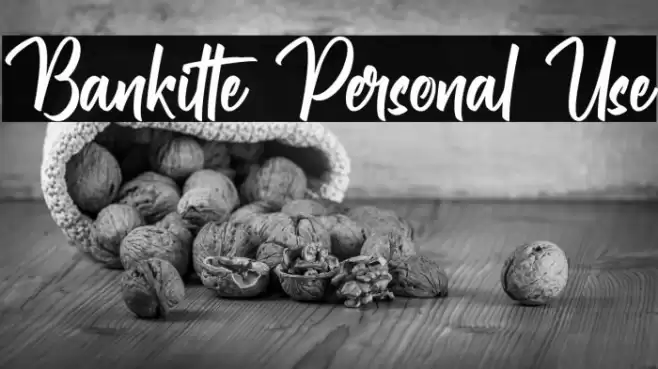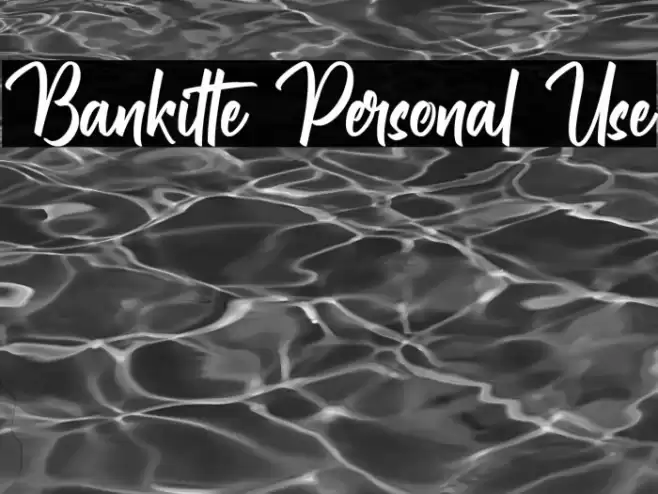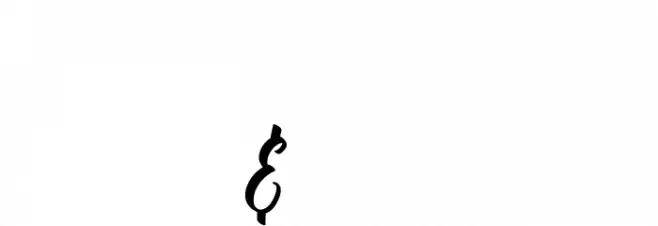
Bankitte Personal Use Font
Bankitte Personal Use Description
This font features a dynamic and flowing script style, characterized by its elegant and fluid strokes. The uppercase letters are slightly more formal, with a graceful, cursive appearance that maintains readability. The lowercase letters are more playful and casual, with a bouncy baseline and varying stroke widths that add a sense of movement and energy. The ampersand symbol is particularly ornate, showcasing the font's decorative nature. Overall, this font combines a modern aesthetic with a touch of classic calligraphy, making it versatile for various design needs.
A dynamic script font with elegant, flowing strokes and a modern calligraphic style from Regular fonts.
- Proposed Projects: Ideal for wedding invitations, branding projects, social media graphics, and elegant packaging designs.
- Use Case: Logos, Invitations, Headlines